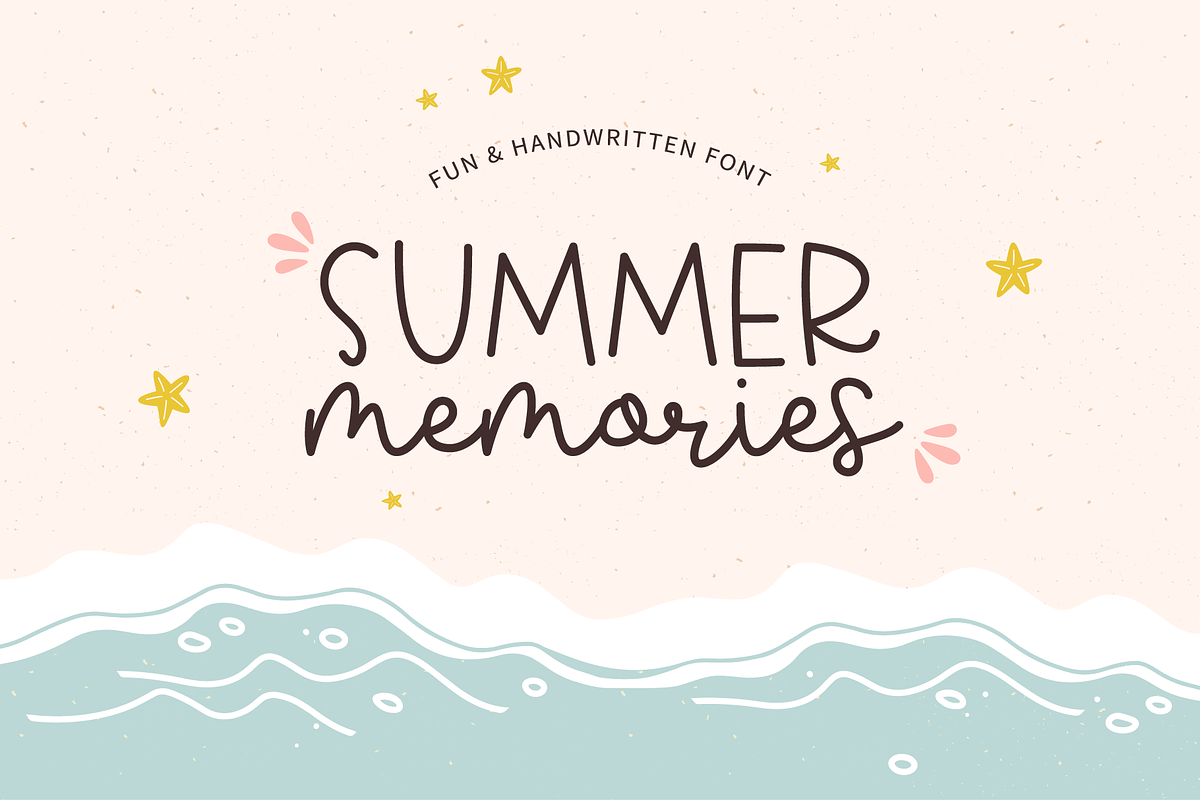
Summer Memories Font Free Download is a lighthearted and nostalgic typeface designed to capture the warmth and carefree spirit of summertime. Please note, you are required to purchase this font for commercial use. It is available for free download for testing and personal projects only.
With its handwritten style, soft curves, and breezy charm, Summer Memories is perfect for postcards, travel blogs, photo captions, beach-themed branding, social media posts, and summer event invitations. It brings a personal and playful vibe that feels just like sunshine on paper.
By choosing Summer Memories Font Free Download, you're getting a high-quality script font that installs easily and works flawlessly across all major design platforms. Whether you're preserving moments or designing with heart, Summer Memories adds warmth, personality, and a touch of sunshine to every project.